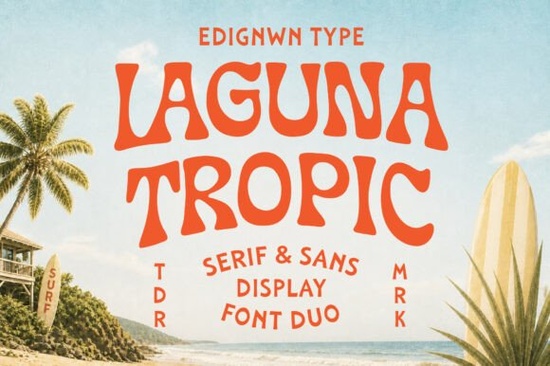
If you've been looking for a typeface that captures the feel of sun-bleached motel signs and vintage surf posters, the Laguna Tropic font is worth a closer look. It's a display font duo one serif, one sans that draws directly from retro surf culture, tropical resort signage, and classic coastal branding. For designers working on beach-themed projects, this typeface delivers a specific mood that's hard to replicate with generic fonts.
What Makes Laguna Tropic Different from Other Retro Fonts?
Most retro fonts lean heavily into one era or style. Laguna Tropic blends several influences mid-century beach motel signage, vintage summer travel postcards, and hand-painted surf shop lettering into one cohesive system. The serif and sans versions are designed to work together, so you get visual contrast without the fonts clashing.
The curves are soft and slightly organic, giving each letterform a handcrafted quality. This isn't a perfectly geometric typeface. The slight imperfections are intentional and contribute to the warm, nostalgic atmosphere. If you've worked with fonts like Temur Amorak for bold brush-style projects, Laguna Tropic takes a completely different direction it's sun-soaked and relaxed rather than raw and urban.
Who Is This Font Best For?
Laguna Tropic works well for anyone building visual identities around coastal, resort, or summer themes. Specifically:
- Brand designers creating logos for surf shops, beach bars, tropical hotels, or vacation rental businesses
- Print-on-demand sellers designing apparel, tote bags, and posters with a vintage beach aesthetic
- Event organizers working on beach party invitations, festival posters, or resort marketing materials
- Small businesses in coastal tourism, seafood restaurants, or surf schools that need consistent branding
- Crafters and hobbyists making scrapbook pages, stickers, or digital planners with a tropical vibe
The duo format is particularly useful here. You can use the serif for headlines and the sans for supporting text, or mix them within the same layout for visual variety.
What Design Projects Work Well with This Typeface?
Based on its styling and character set, Laguna Tropic fits naturally into these types of projects:
- Logo design especially for businesses with a coastal or vacation identity
- Poster layouts surf competitions, summer sales, beach festivals
- Packaging tropical food products, sunscreen branding, coconut-based skincare
- Apparel graphics vintage-style t-shirt designs for print-on-demand shops
- Social media content Instagram posts, story templates, and highlight covers for travel or lifestyle brands
- Editorial layouts travel magazines, resort brochures, vacation guides
How Does It Compare to Other Display Font Duos?
Laguna Tropic is specifically built as a matched pair, which saves time when you're designing layouts that need typographic hierarchy. Instead of searching for two separate fonts that complement each other, you already have a serif-sans combination that's been tested to work together.
Tips for Getting the Most Out of Laguna Tropic
Here are a few practical suggestions based on how this typeface is designed:
- Use it at larger sizes. As a display font, it's meant for headlines and prominent text not body copy or fine print.
- Let the duo do the work. Combine the serif and sans versions for natural contrast instead of adding a third unrelated font.
- Keep backgrounds simple. The handcrafted letterforms need breathing room. Busy backgrounds can make the text harder to read.
- Lean into the vintage color palette. Warm tones like coral, sand, faded teal, and golden yellow complement the coastal personality.
Quick Checklist Before You Start Your Next Beach-Themed Project
- Test both weights at the size you'll actually use them
- Choose 2–3 warm, sun-faded colors that match the retro coastal mood
- Pair with a simple sans-serif for any longer body text
- Export and check readability on both screen and print